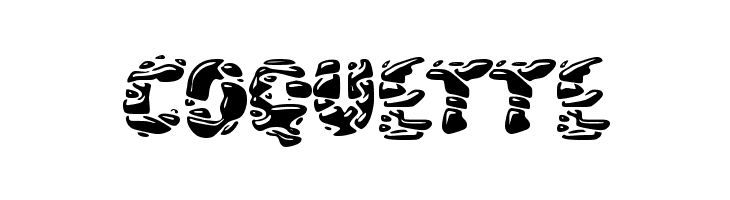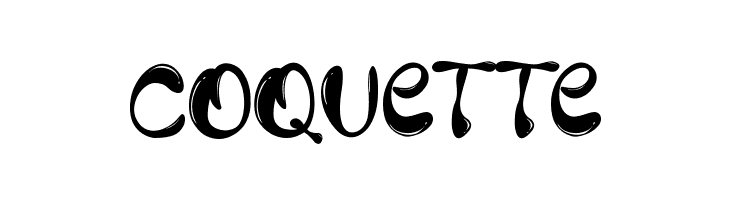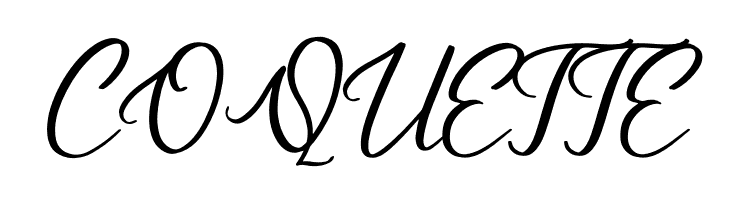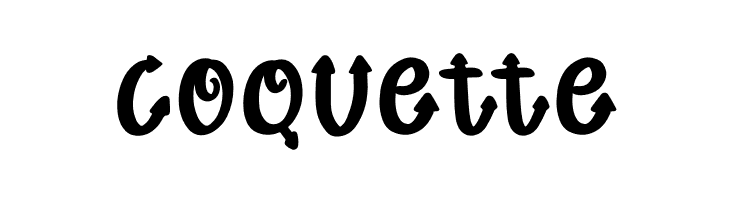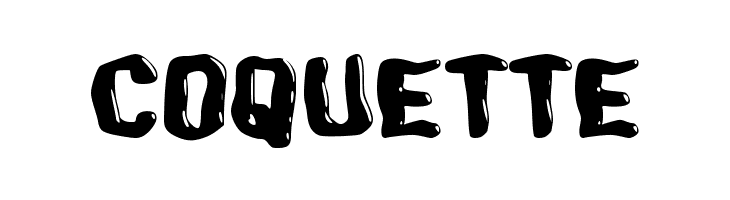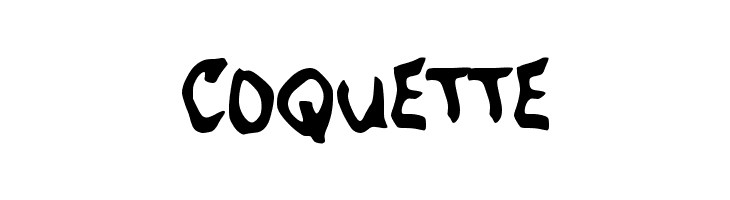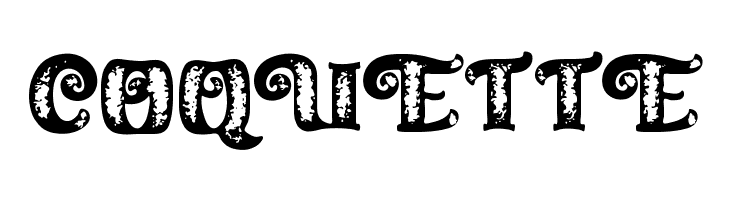
An irregular, bold font with an organic, ink-splatter appearance.
A playful, hand-drawn font with an organic, whimsical style.
A dynamic and elegant script font with fluid, cursive strokes.
An elegant, flowing script font with a cursive, italic style.
A bold, playful font with an organic, hand-drawn texture.
A playful, handwritten cursive font with fluid strokes.
A bold, textured font with a distressed, vintage look and playful, curly style.
A whimsical and playful font with curly, looping strokes and bold, rounded characters.
A bold, abstract font with a liquid-like, decorative style.
A playful, bubble-like font with rounded, bold characters.